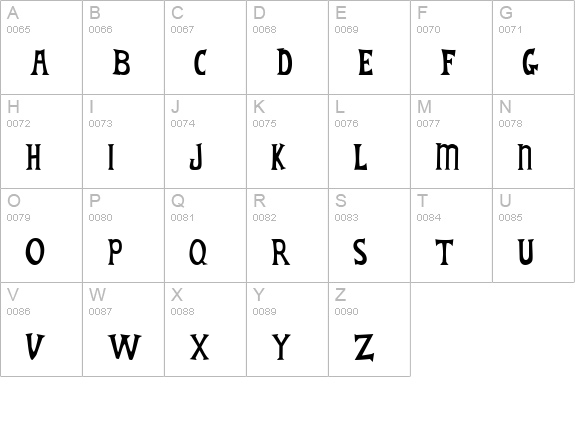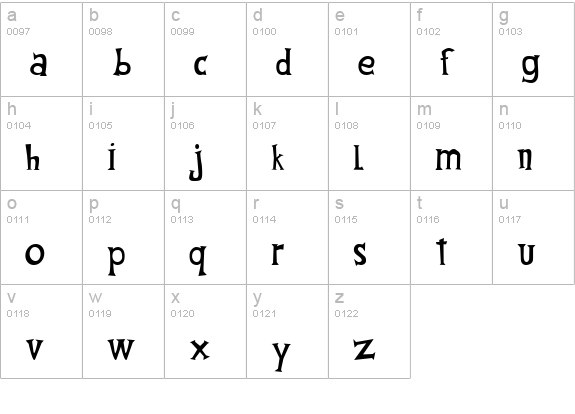
Fantique Four Font Details
Introducing Fantique Four font, a timeless and elegant typeface that exudes sophistication and charm. With its classic yet modern design, Fantique Four is perfect for a wide range of creative projects, from branding and packaging to invitations and social media graphics. This versatile font features clean lines and delicate curves that give your text a refined and polished look. Whether you're designing a logo for a high-end boutique or creating a stylish wedding invitation, Fantique Four is sure to make a lasting impression. Best of all, Fantique Four is available for free download at FontsMarket.com. So why wait? Elevate your designs with this exquisite font today and bring a touch of luxury to your next project.